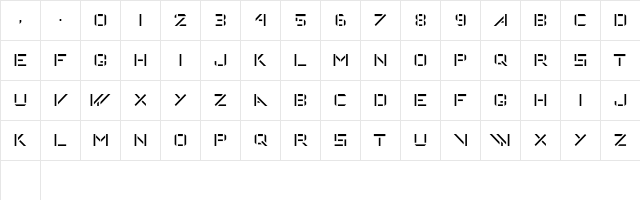
DeStijl Stencil
Design Context for DeStijl Typeface
DeStijl borrows the utilitarian aesthetic of stencil lettering, with its characteristic cutaways and no-frills construction lending an industrial edge.
A strong choice for packaging that needs edge, warehouse aesthetics, and rough-and-ready visual identities.
Pro Tip: Use DeStijl at large sizes on packaging, posters, or apparel where the stencil cutaways read clearly. Avoid small sizes where those gaps become visual noise.